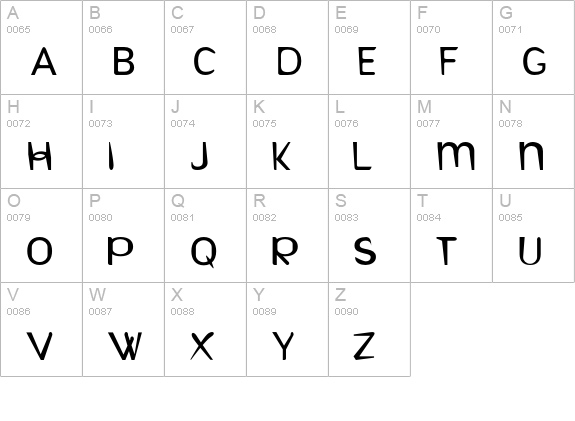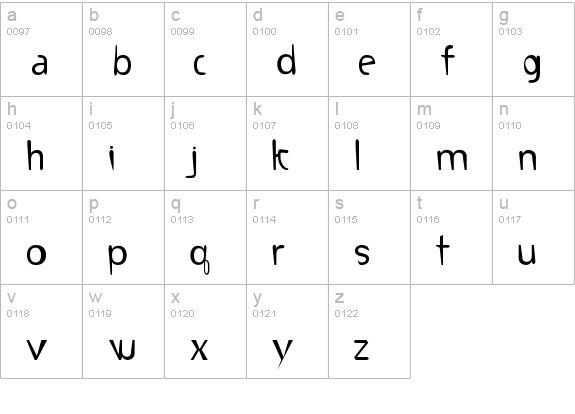
Voyou-Regular Font Details
Voyou-Regular is the standard, neutral variant in the Voyou typeface family \xE2\x80\x94 well suited to general body text, paragraphs, and standard typographic work.
Voyou-Regular is a versatile and modern font that exudes a sense of sophistication and style. With its clean lines and elegant curves, this typeface is perfect for a wide range of design projects, from branding and logos to advertising and website headers. This font showcases a unique blend of classic and contemporary design elements, making it suitable for both traditional and cutting-edge designs. Its balanced proportions and carefully crafted letterforms ensure optimal legibility, even at small sizes. But what sets Voyou-Regular apart from other fonts is that it is free. That's right, this stunning typeface is available for download at FontsMarket.com, completely free of charge. Whether you're a professional designer or a hobbyist, you can add this font to your collection without breaking the bank. The designers behind Voyou-Regular made it their mission to provide a high-quality font that can be accessible to everyone. They understand that not everyone has the budget to invest in premium fonts, and they believe that great design should be available to all. So, whether you're looking to elevate your branding, create eye-catching headlines, or simply add a touch of elegance to your designs, Voyou-Regular is the perfect choice. And with its free availability at FontsMarket.com, there's no reason not to give it a try. Download Voyou-Regular today and let your creativity soar.